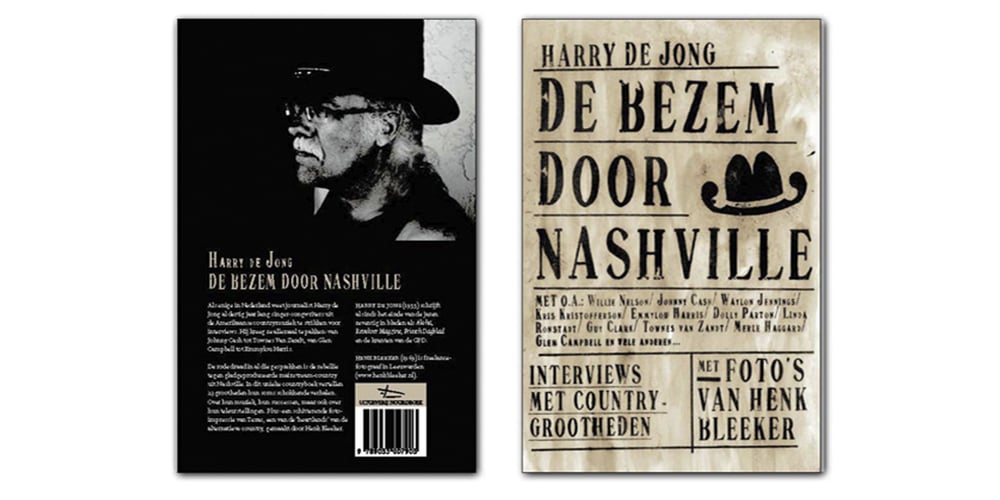
DF Pommes Font Family was designed by Ko Sliggers and published by Dutchfonts. DF Pommes contains 6 styles and family package options. The Pommes font originates from my mid seventies potato punchcuttings at artschool. Since I’m living in a potato republic (NE of the province of Groningen) I got inspired to continue. I prepared this culinary alphabet as a tribute to this wonderful allround vegetable. Belgian and French recipies helped me in selecting and cutting/cooking the 6 styles. The Pommes-Dauphine Ultra Heavy (too much eggs added) can be used as a layer behind the Pommes-Dauphine.